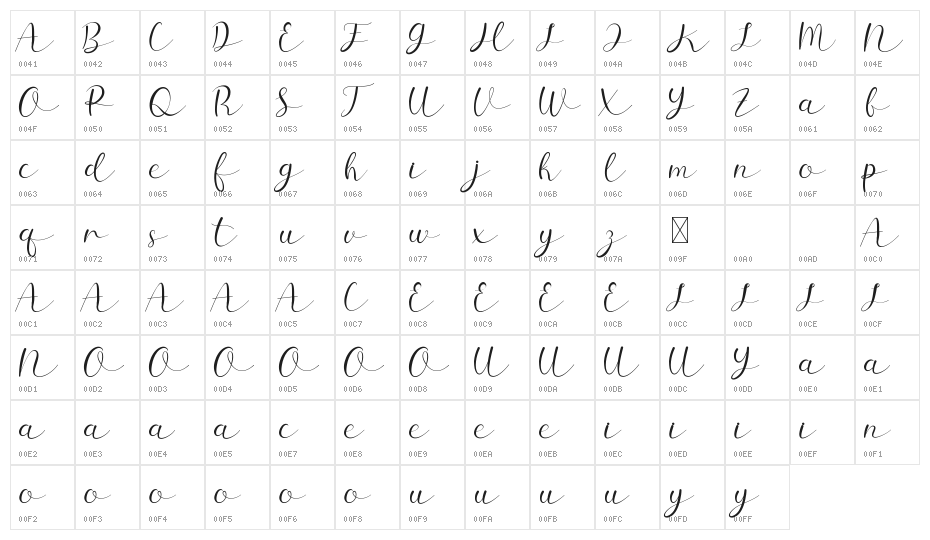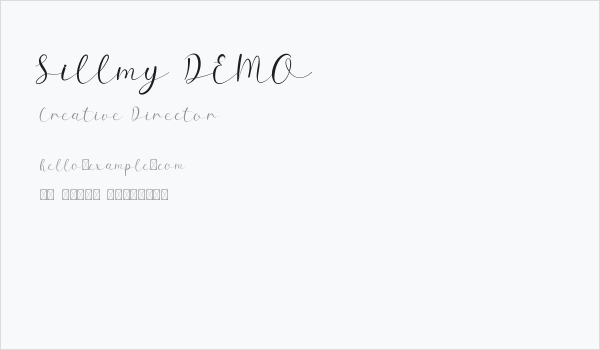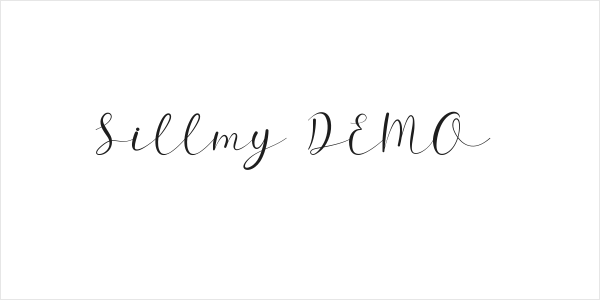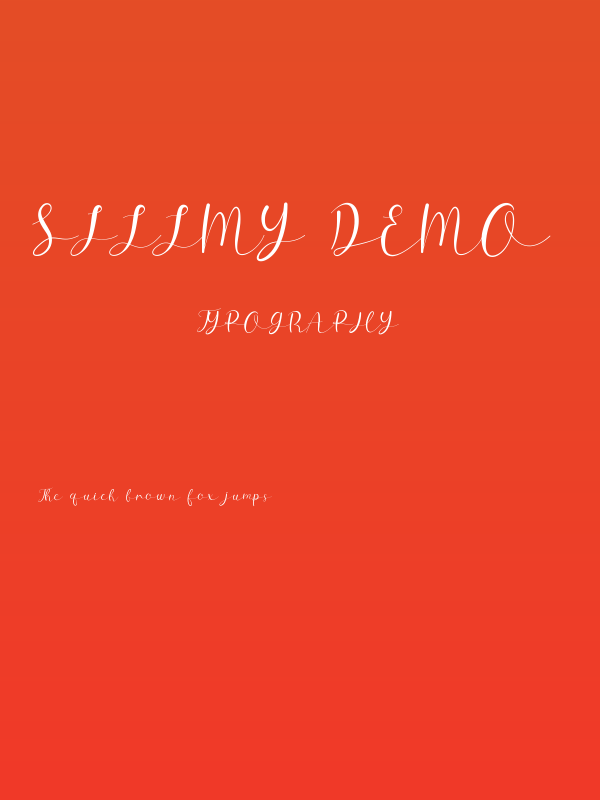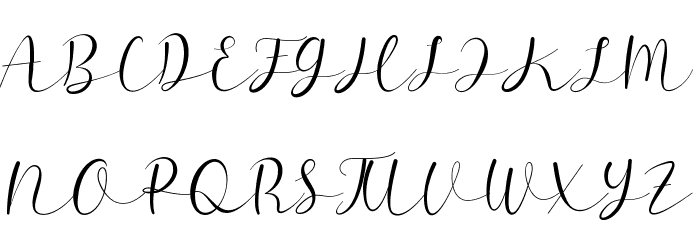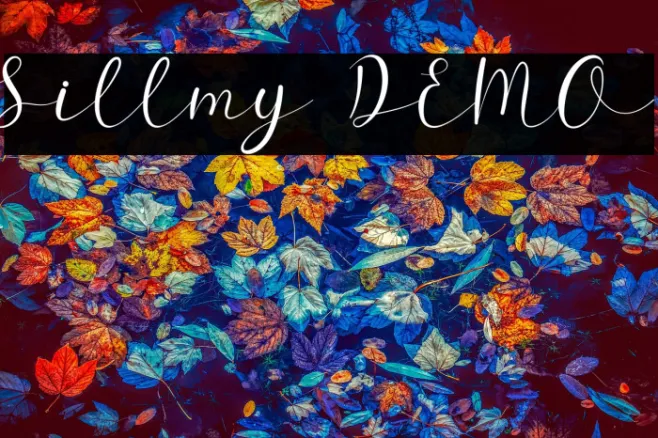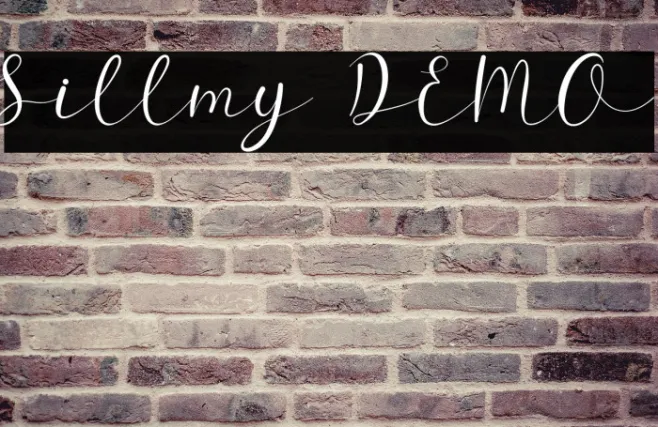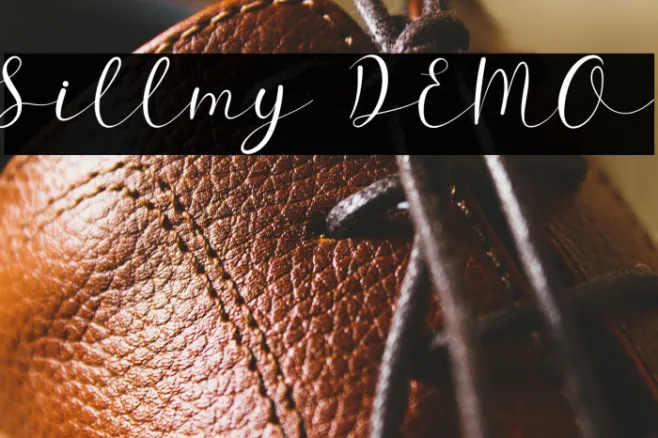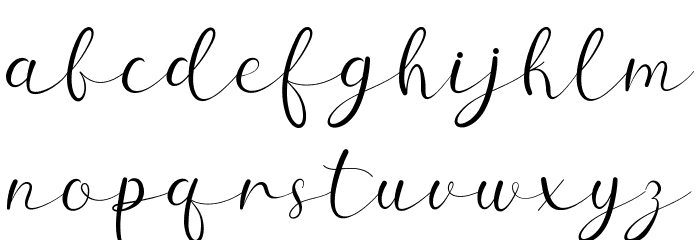
Sillmy DEMO Font
Sillmy DEMO Description
This elegant script font features flowing, interconnected letters with a delicate and sophisticated style. The uppercase letters are characterized by graceful loops and swashes, while the lowercase letters maintain a consistent flow with subtle variations in stroke width. The font exudes a sense of elegance and charm, making it ideal for formal invitations, branding, and decorative purposes. The characters are well-spaced, allowing for readability while maintaining an artistic flair. The font's design is both timeless and modern, suitable for a variety of creative projects.
| Overall Style | Elegant, Modern |
| Use Case | Invitations, Branding, Decorative |
| Proposed Projects | Ideal for wedding invitations, branding, greeting cards, and decorative projects. |